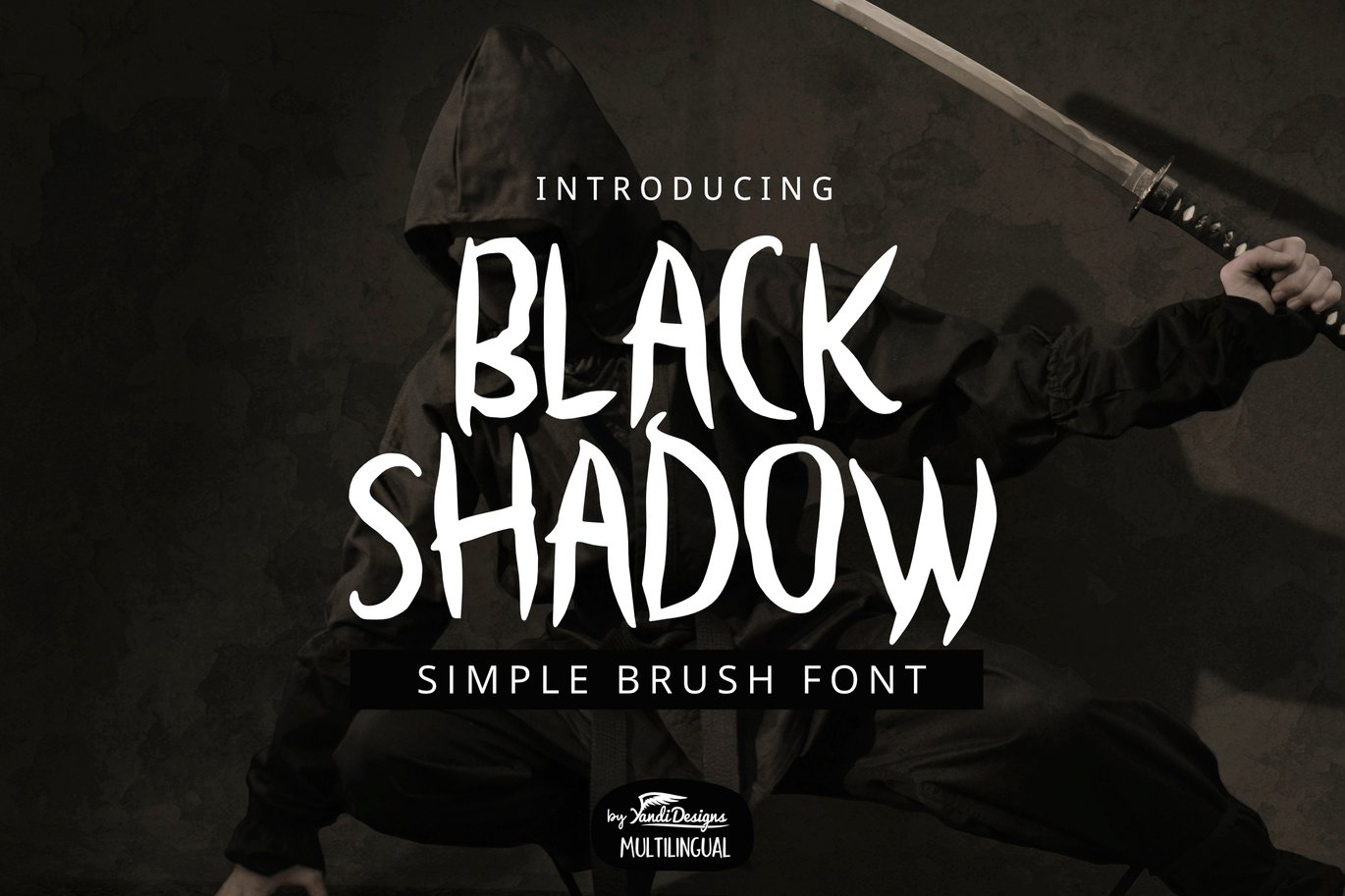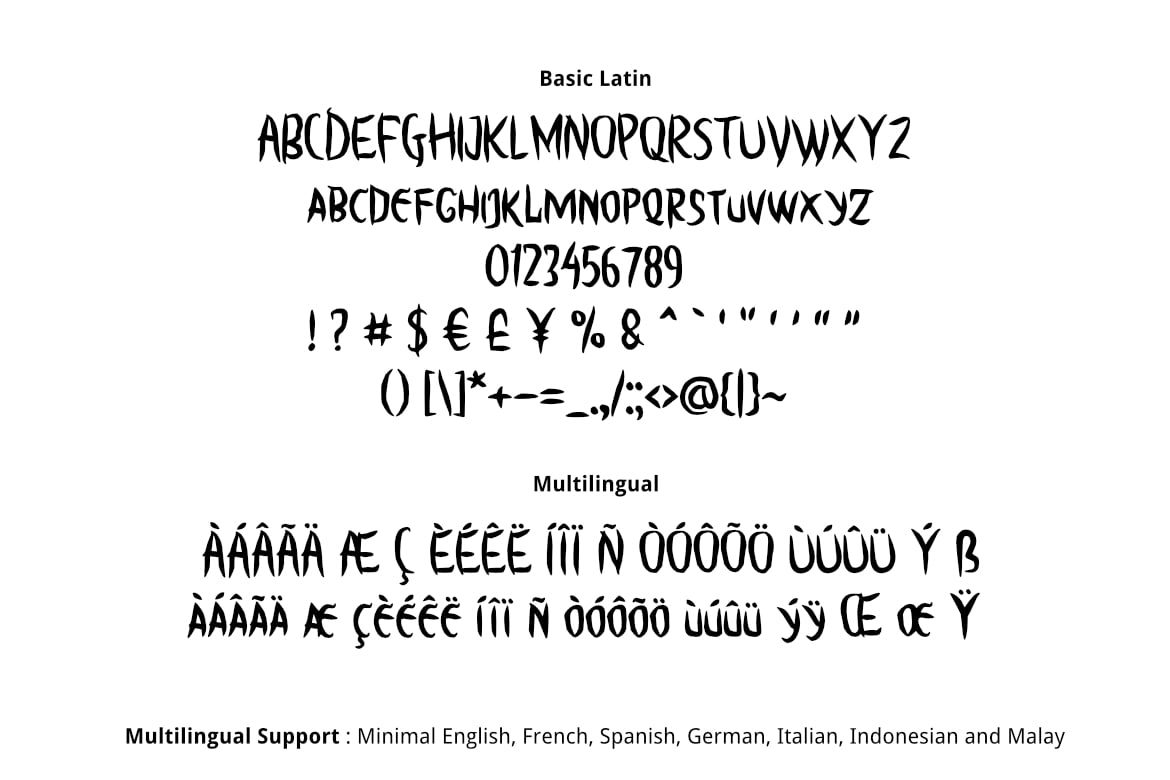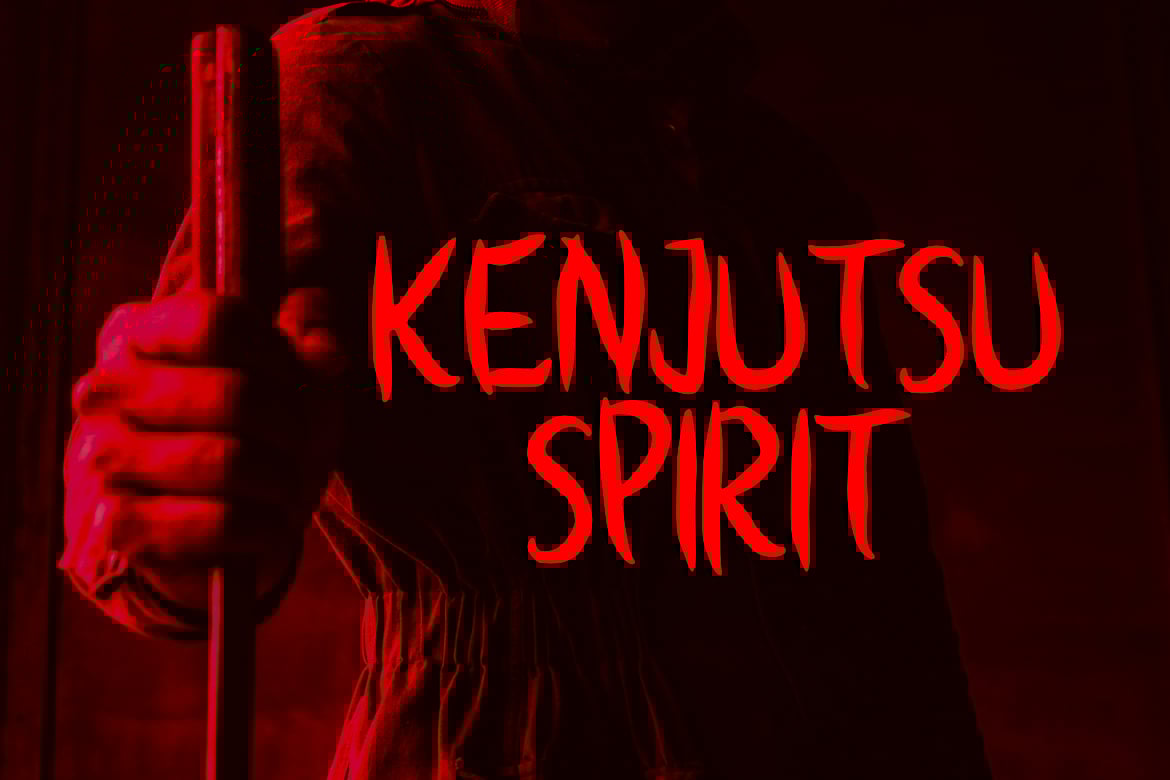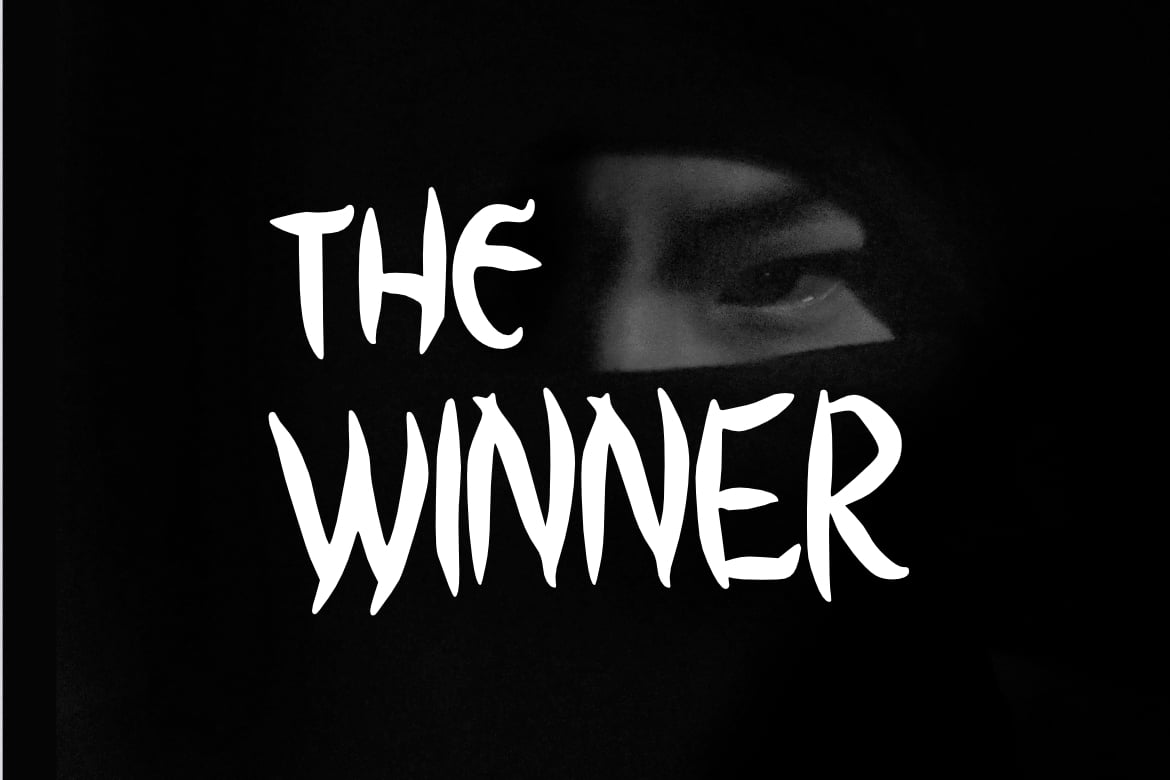
Black Shadow Font
Black Shadow is simple multipurpose handmade brush font, suitable for many project children book, quotes, logo , heading , title etc.
Basic Latin (Standard English character , number, symbol)
Multilingual Support  (minimal English, French, Spanish, German, Italian, Indonesian, Malay)